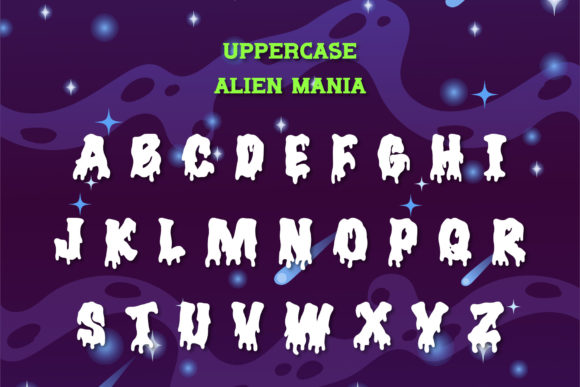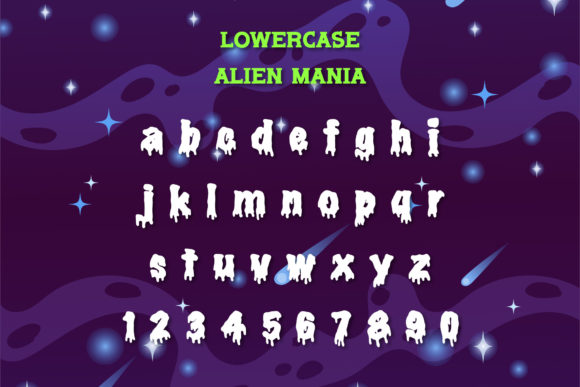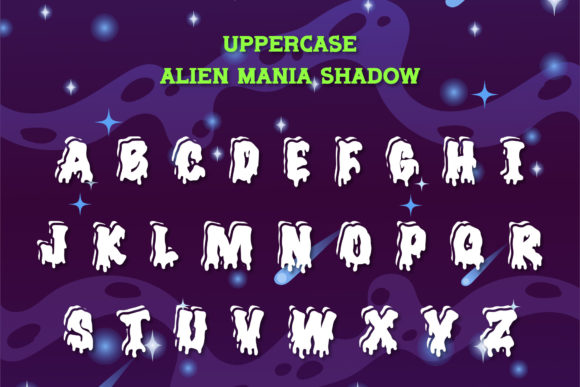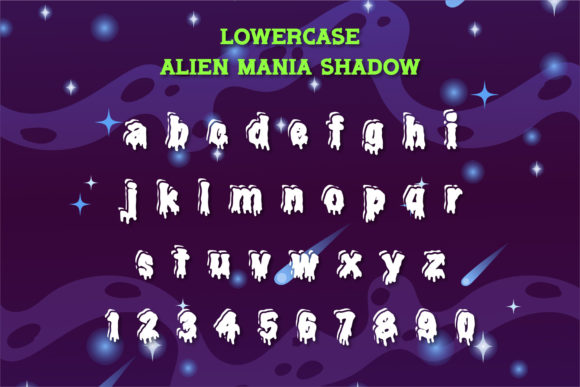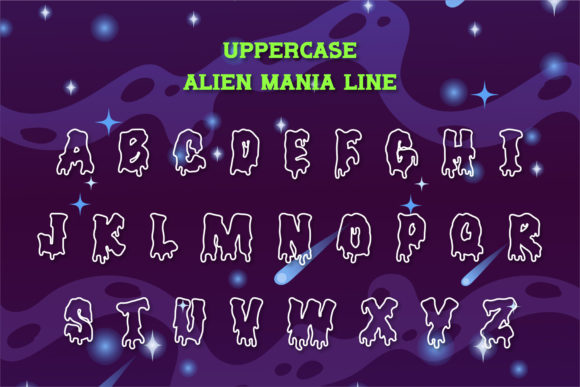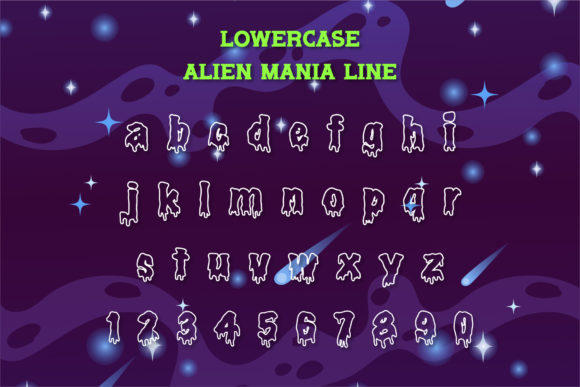
Unleash Your Creativity with Alien Mania Font: A Cool and Techno Display Font
Are you tired of using the same old fonts for your designs? Look no further! Alien Mania Font is here to take your creative projects to the next level. This cool and techno looking display font is perfect for designers, crafters, and anyone looking to add a touch of futurism to their work.
What is Alien Mania Font?
Alien Mania Font is a unique and eye-catching display font that is sure to make your designs stand out. Its techno-inspired style gives it a futuristic and edgy look that’s perfect for a wide range of projects. Whether you’re working on a blog post, logo, branding, ad, invitation, greeting card, planner, photo album, decoration, or anything else, Alien Mania Font is the perfect choice.
The versatility of Alien Mania Font is one of its best features. You can use it for various projects, such as:
- Blog posts: Add a touch of futurism to your blog posts and make them more engaging.
- Logos and branding: Create a unique and memorable brand identity with Alien Mania Font.
- Ads: Make your ads stand out with a bold and eye-catching font.
- Invitations and greeting cards: Add a touch of techno style to your invitations and greeting cards.
- Planners and photo albums: Give your planners and photo albums a futuristic look.
- Decorations: Use Alien Mania Font to create unique and eye-catching decorations.
Why Choose Alien Mania Font?
So, why should you choose Alien Mania Font for your designs? Here are just a few reasons:
- Unique style: Alien Mania Font has a unique and eye-catching style that’s sure to make your designs stand out.
- Versatility: You can use Alien Mania Font for a wide range of projects, from blog posts to logos and branding.
- High-quality: Alien Mania Font is a high-quality font that’s designed to produce crisp and clear results.
Tips for Using Alien Mania Font
Here are a few tips for using Alien Mania Font in your designs:
- Experiment with different sizes: Alien Mania Font looks great in a variety of sizes, so don’t be afraid to experiment.
- Pair with other fonts: Try pairing Alien Mania Font with other fonts to create a unique and interesting look.
- Use it sparingly: While Alien Mania Font is a great font, it can be overwhelming if used too much. Use it sparingly to create a bold and eye-catching effect.
Whether you’re a professional designer or a crafter, Alien Mania Font is sure to become a staple in your design toolkit. Its endless design possibilities and high-quality results make it a must-have for anyone looking to take their designs to the next level.